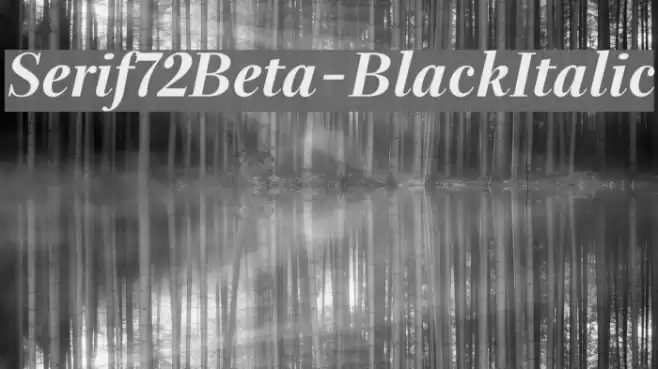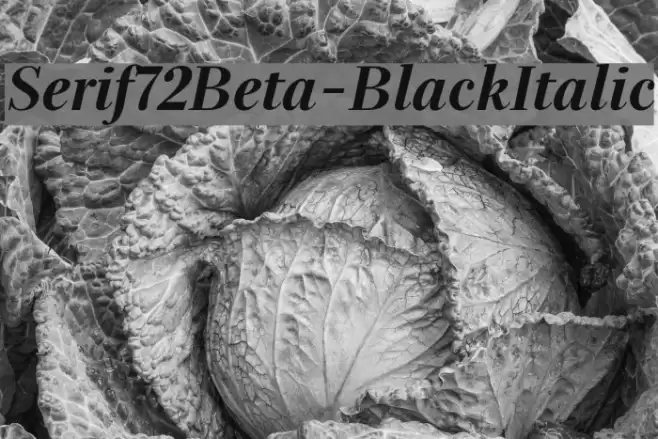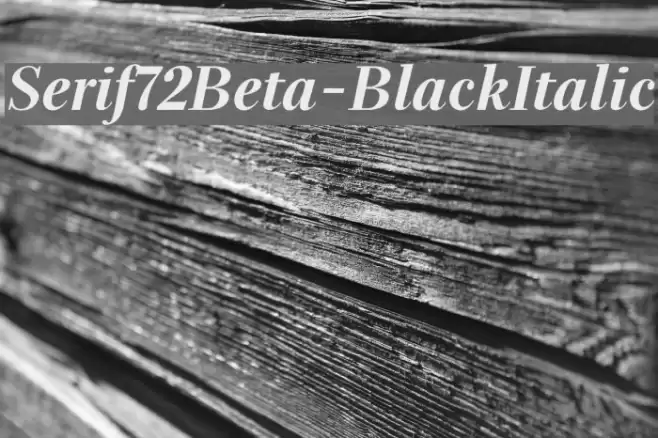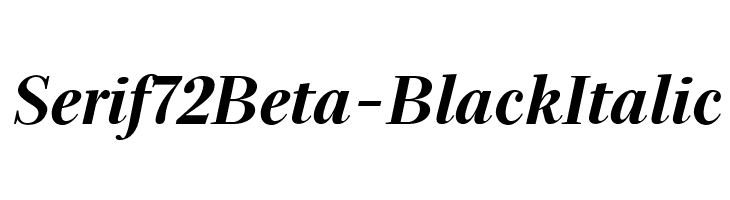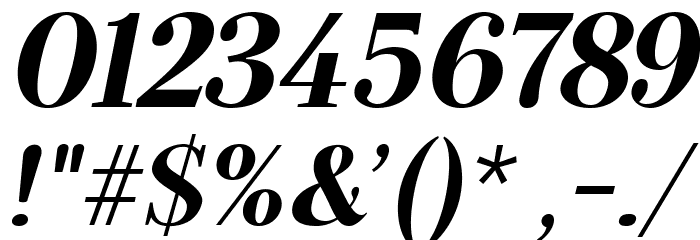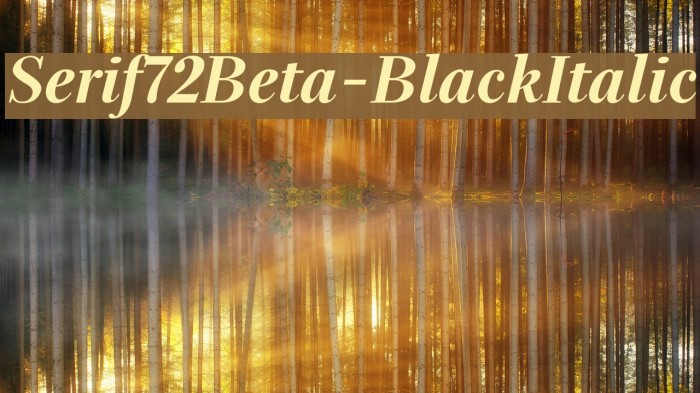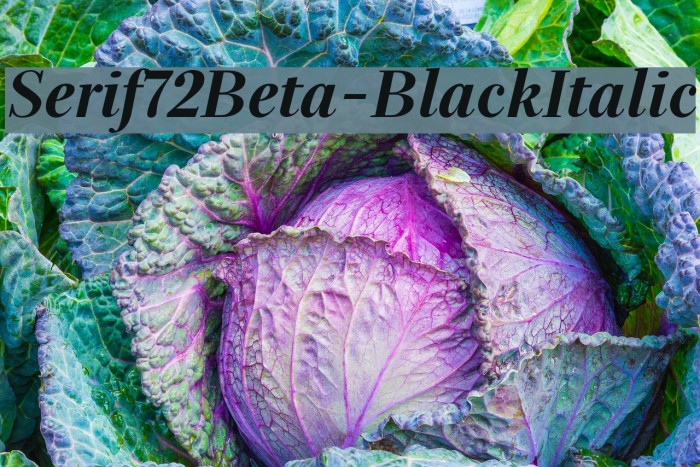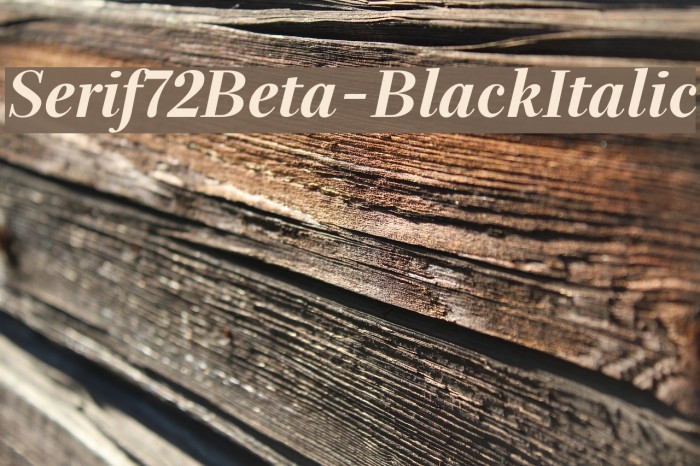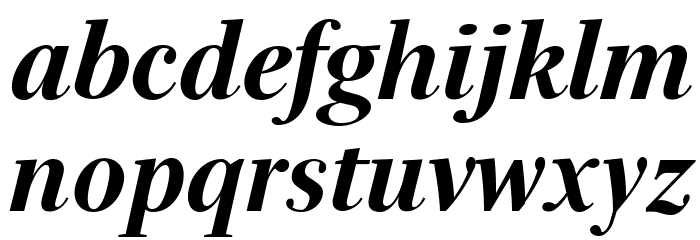
Serif72Beta-BlackItalic Font
Serif72Beta-BlackItalic Description
This elegant serif font features a classic and sophisticated design with a pronounced italic style. The characters exhibit a high contrast between thick and thin strokes, enhancing its readability and visual appeal. The uppercase letters are bold and commanding, while the lowercase letters maintain a graceful flow. Numbers are well-proportioned, and the special characters are distinct and stylish. The overall aesthetic is both traditional and modern, making it versatile for various design applications.
A classic serif font with high contrast and a bold italic style from Uncategorized fonts.
- Proposed Projects: Ideal for luxury branding, editorial design, book covers, and elegant invitations.
- Overall Style: Classic
- Use Case: Headlines, Logos, Editorial design